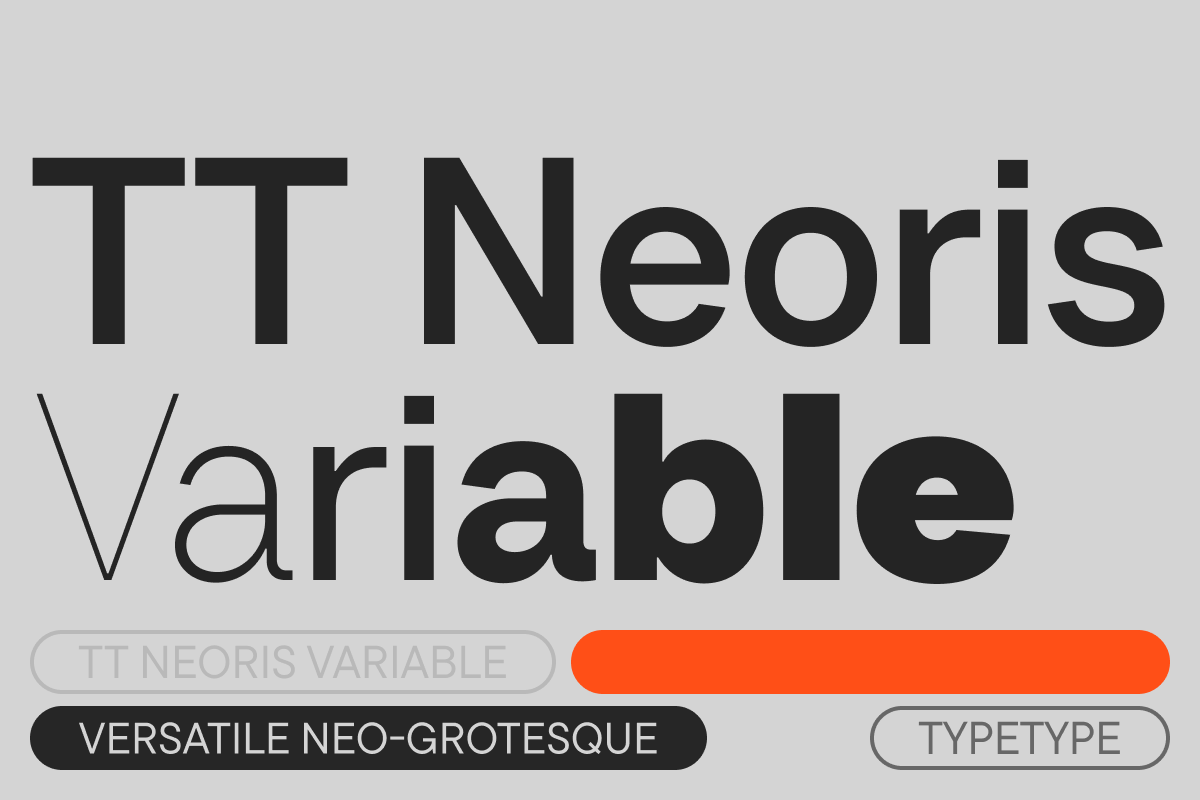
TT Neoris Variable
TT Neoris is a meticulously crafted Neo-Grotesque font that combines elegant simplicity with modern functionality. Developed over two and a half years through extensive market research and user feedback, it achieves the perfect balance between neutral versatility and distinctive freshness. The result is a highly adaptable typeface that's equally suited for digital interfaces, branding, and print - offering technological precision, functional clarity, and contemporary aesthetics in every glyph.